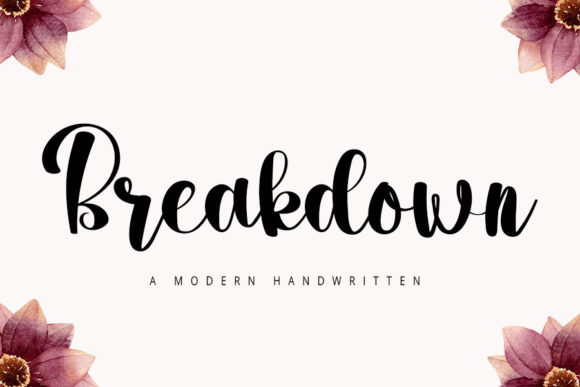
The Charm of Breakdown Font: A Designer’s Delight
I’ll never forget the time I was working on a wedding invitation project, and my client asked for a font that was both elegant and playful. I scoured the internet, tried out dozens of fonts, but nothing seemed quite right. That was until I stumbled upon Breakdown Font. It was love at first sight! 💕 The charming, handwritten aesthetic perfectly captured the tone I was going for, and my client was thrilled with the result.
A Personal Review of Breakdown Font
• ✨ Elegant and charming handwritten aesthetic
• ✅ Perfect for wedding invitations, thank you cards, and other formal events
• 💫 Works beautifully for quotes, greeting cards, and logos
• 🎨 Highly versatile and can be used for a variety of design projects
While Breakdown Font is an excellent choice for many design projects, it’s not without its limitations. For example:
• 🤔 The font can be a bit finicky when it comes to kerning, so be sure to adjust accordingly
The Designer Inspiration Behind Breakdown Font
While the true story behind Breakdown Font’s creation is unknown, it’s easy to imagine a designer sitting at their desk, pouring their heart and soul into creating a font that would bring joy and elegance to design projects. Perhaps they were inspired by the beauty of handwritten letters, or the sophistication of elegant typography. Whatever the inspiration, Breakdown Font is a true gem that deserves to be celebrated.
What is Breakdown Font best used for? Breakdown Font is perfect for wedding invitations, thank you cards, quotes, greeting cards, logos, business cards, and any other design project that requires a handwritten touch.
Is Breakdown Font easy to read? Yes, Breakdown Font is highly legible, even at smaller font sizes.